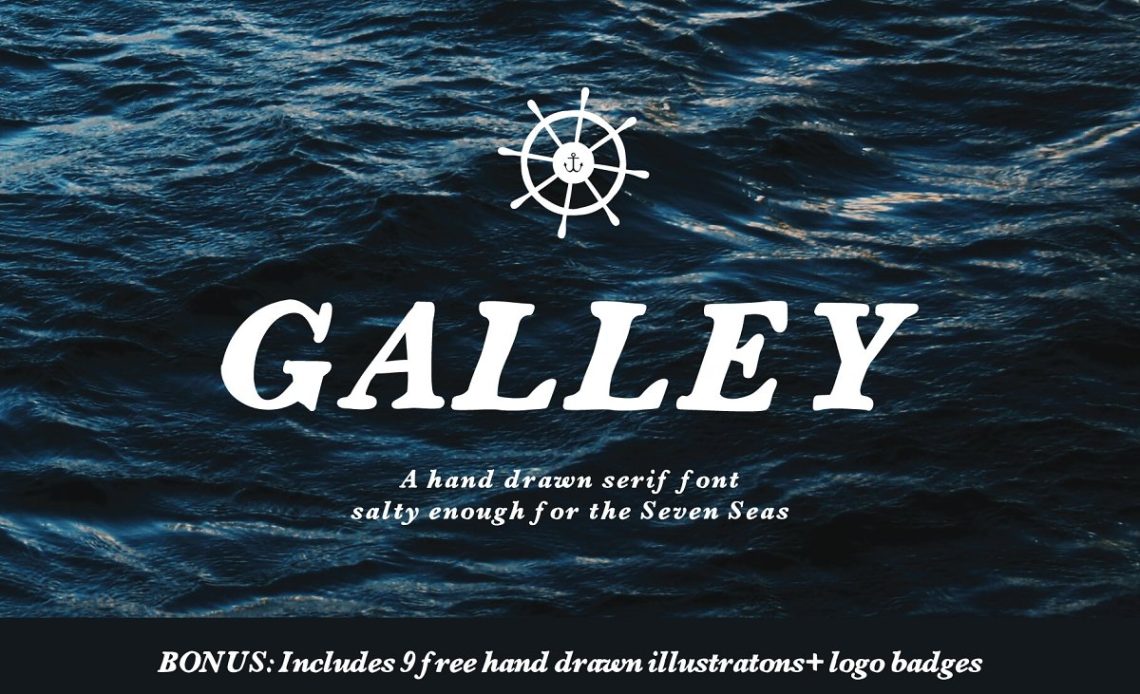
Ahoy there, font enthusiasts! Are you on the lookout for a font that will make your designs stand out and leave a lasting impression? Look no further than Galley Font + Logo Badges! Created by the talented Kait Kenobi, this hand-drawn serif font is the perfect choice for anyone looking to add a touch of salty charm to their designs.
Galley Font was inspired by the waves of a dark and endless ocean, resulting in a font that is both elegant and rugged at the same time. Whether you're creating display text or paragraphs, Galley Font will make your words pop and draw the reader in.
But that's not all - when you download Galley Font, you also get 9 hand-drawn illustrations to use with the font, as well as 5 custom logos created with Galley Font and the included illustrations. With all these assets at your disposal, you'll be able to create stunning designs that capture the essence of the sea and all its mysteries.